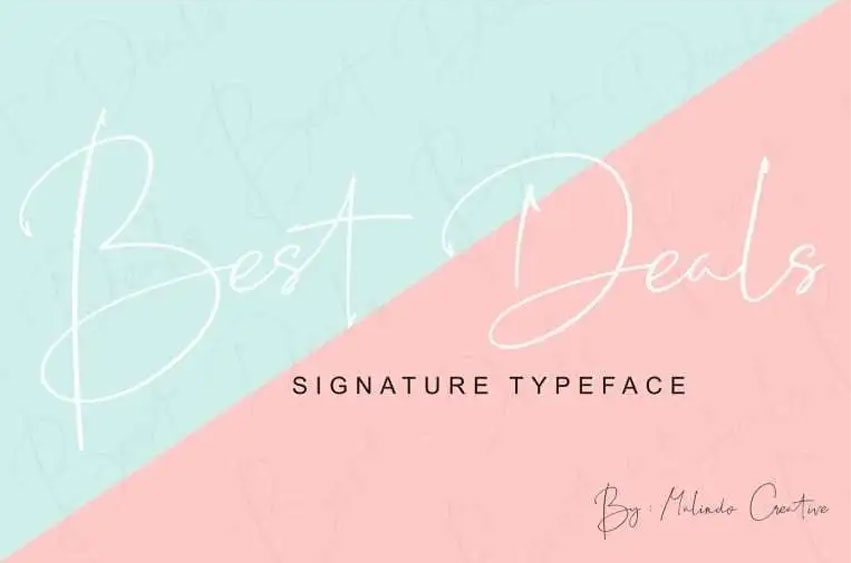
Best Deals Font
Best Deals Font is a fancy beautiful handwritten signature font based on real ink pens with features of ligature support and common language compatibility – an excellent fit in logos, posters, business cards, sales cards of merchandise, books, magazines, greeting cards, placards and blogs, clothing, water-based paint drawings, prints, quotes, clothing and more!